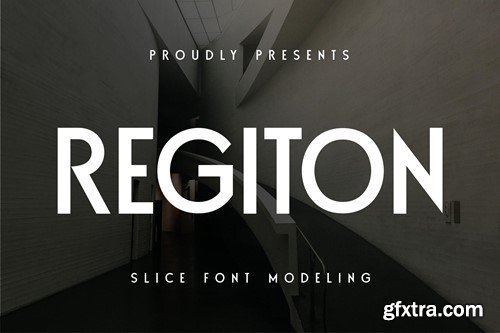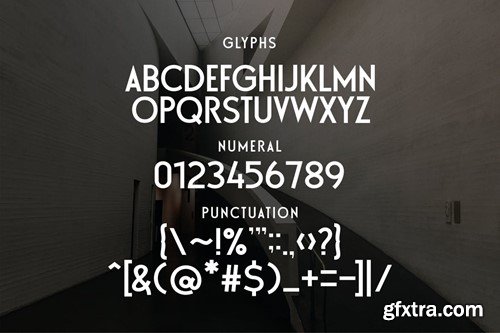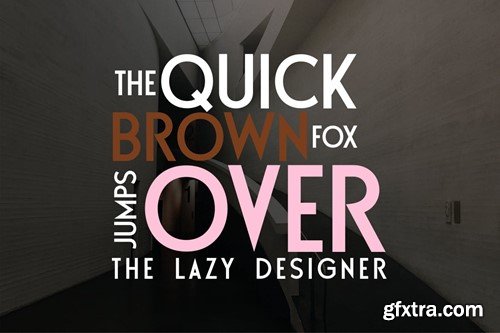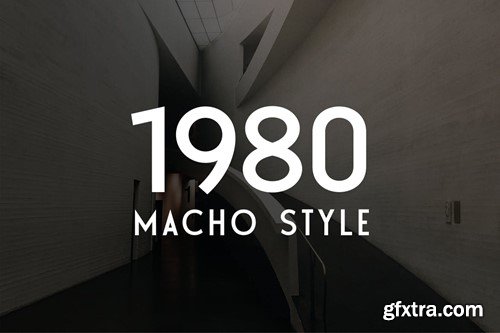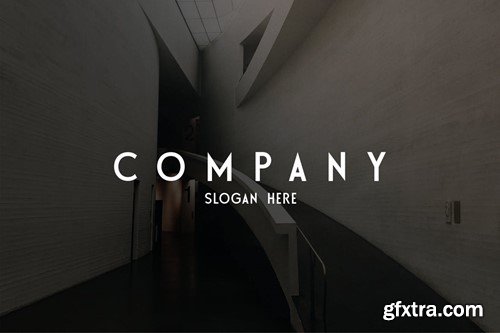
Regiton Font
Unleash the power, agility, and resilience embedded within this typeface. With each stroke, the defining sharpness and vigor of this font magnify, returning a robust character that is distinctly yours. This versatile font breathes life into tabloid articles, amplifies the essence of product descriptions, and imparts a formidable identity to your brand. Experience the revolution in typography, thanks to this font. Appreciate the strength, appreciate you. available in .OTF & .TTF Formats.